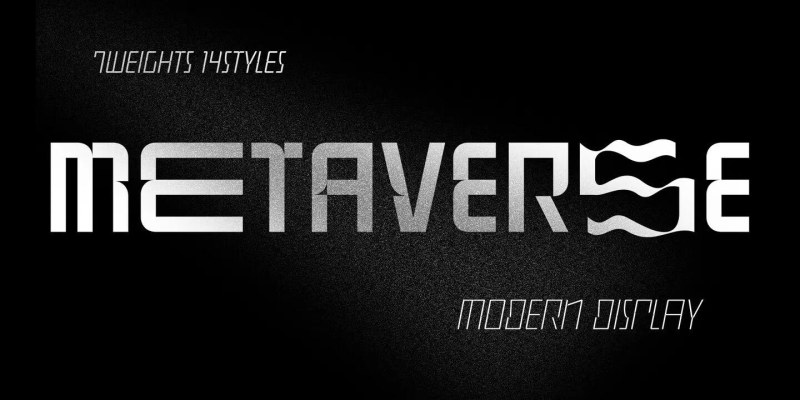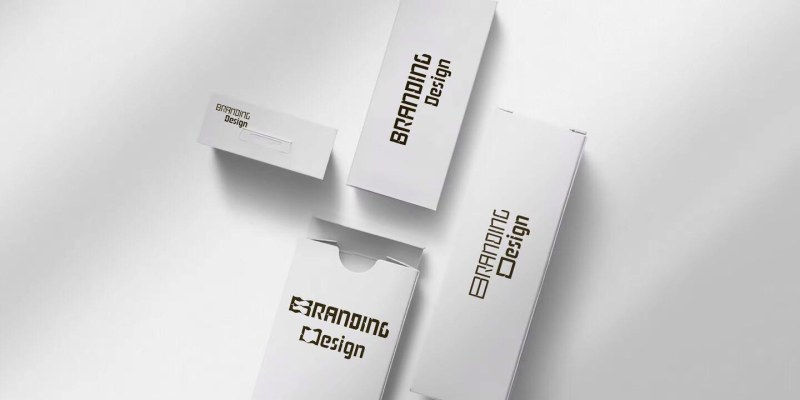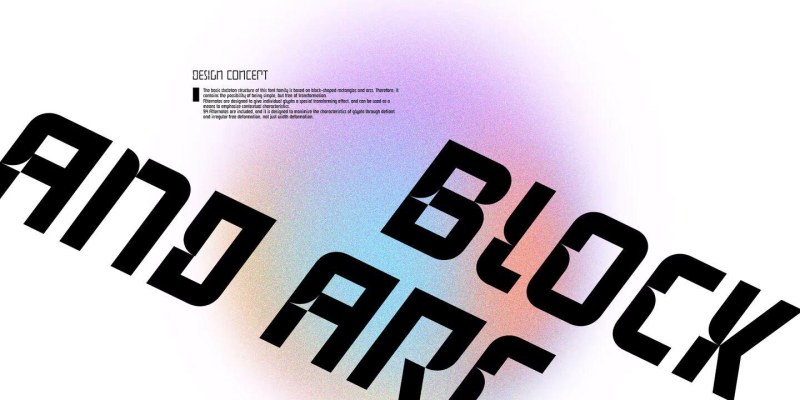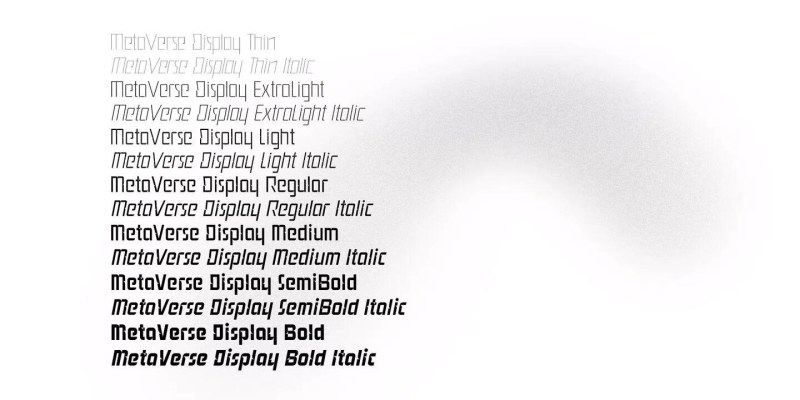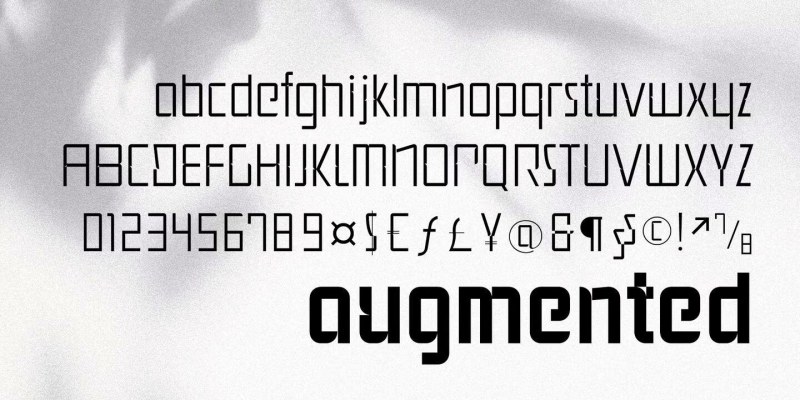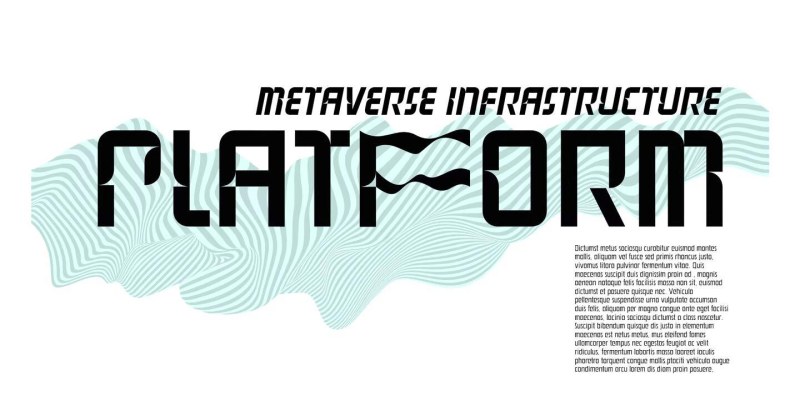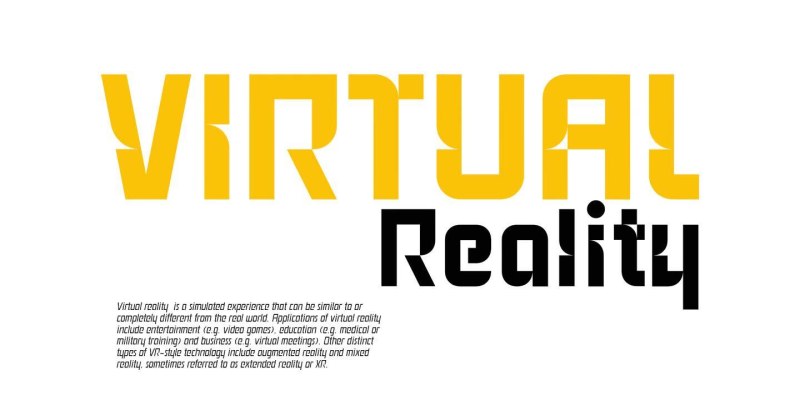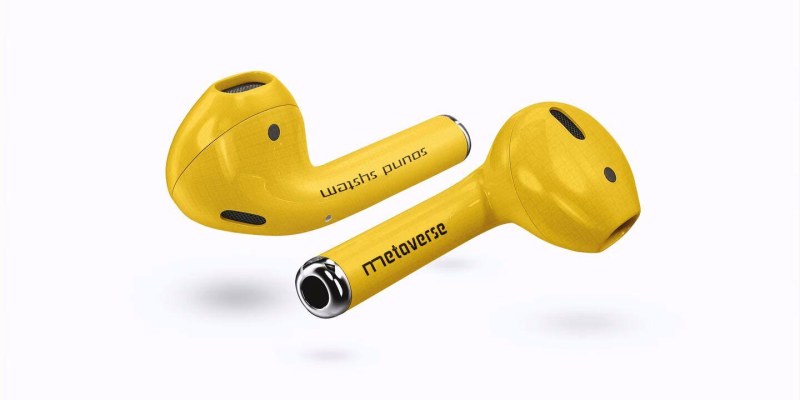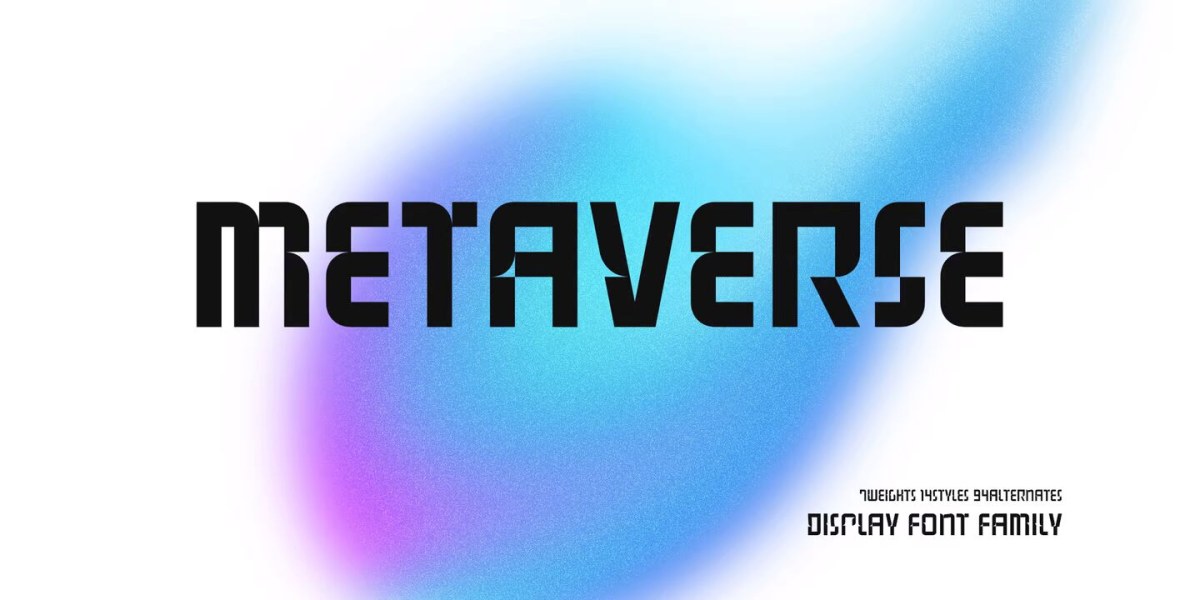
Metaverse Display Font Family
The basic skeleton structure of this font family is based on block-shaped rectangles and arcs. Therefore, it is possible to be simple but free of transformation. Alternates are designed to give individual glyphs a special transforming effect and can be used to emphasize contextual characteristics. 94 Alternates are included, and it is designed to maximize the attributes of glyphs through defiant and irregular free deformation, not just width deformation. These Alternates can be used in most apps that support Opentype. It is included in Stylistic Sets 1 and 2 for uppercase and Stylistic Sets 3 and 4 for lowercase. The App’s function to switch on Alternates refers to the Opentype provided by each App.
Metaverse Display Font Family is a Display Fonts font that brings a professional and versatile look to your projects. The basic skeleton structure of this font family is based on block-shaped rectangles and arcs.